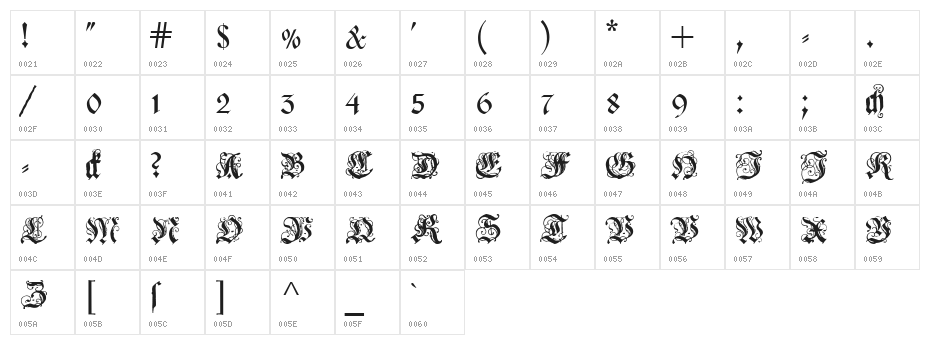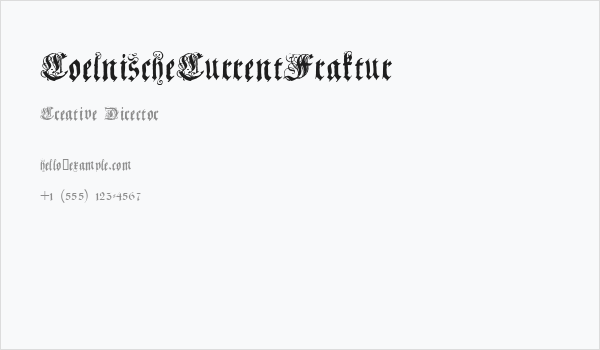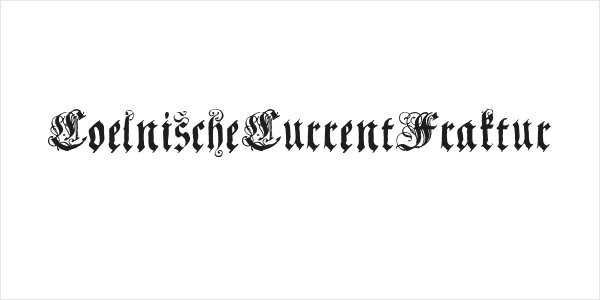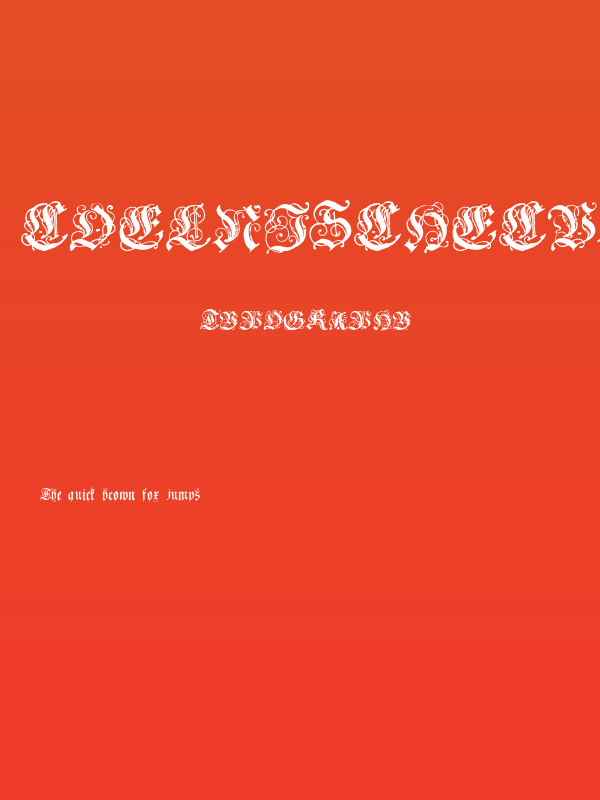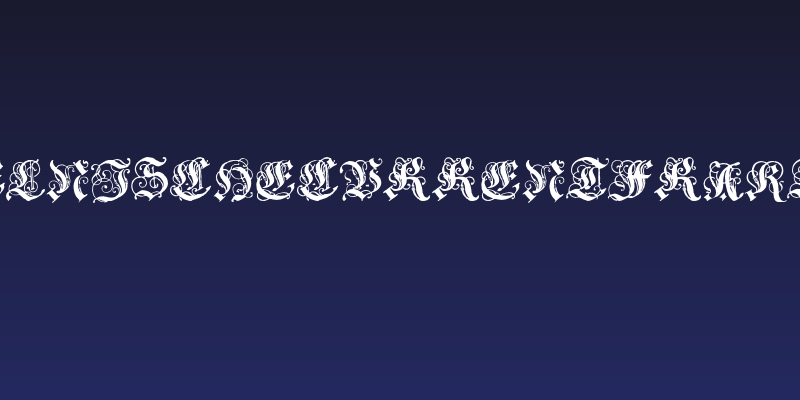
CoelnischeCurrentFraktur Font
CoelnischeCurrentFraktur Description
This font embodies the traditional elegance of blackletter styles, characterized by its intricate and ornate design. The uppercase letters are highly decorative, featuring elaborate flourishes and sharp angles that give a sense of historical gravitas. The lowercase letters maintain a consistent style, with bold strokes and pointed serifs that enhance readability while preserving the font's classic aesthetic. Numbers and special characters are designed to match the overall theme, ensuring a cohesive look. The font's dramatic appearance makes it suitable for projects that require a touch of vintage sophistication.
| Use Case | Headlines, Logos, Decorative text |
| Proposed Projects | Ideal for use in certificates, invitations, historical documents, and branding that requires a vintage or gothic touch. |